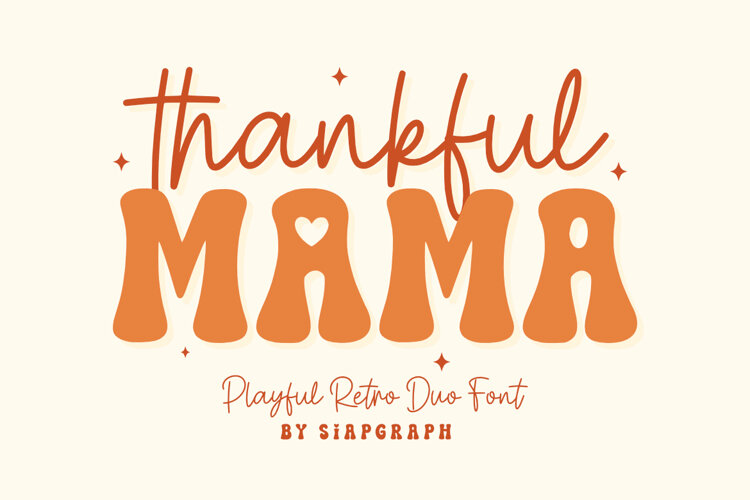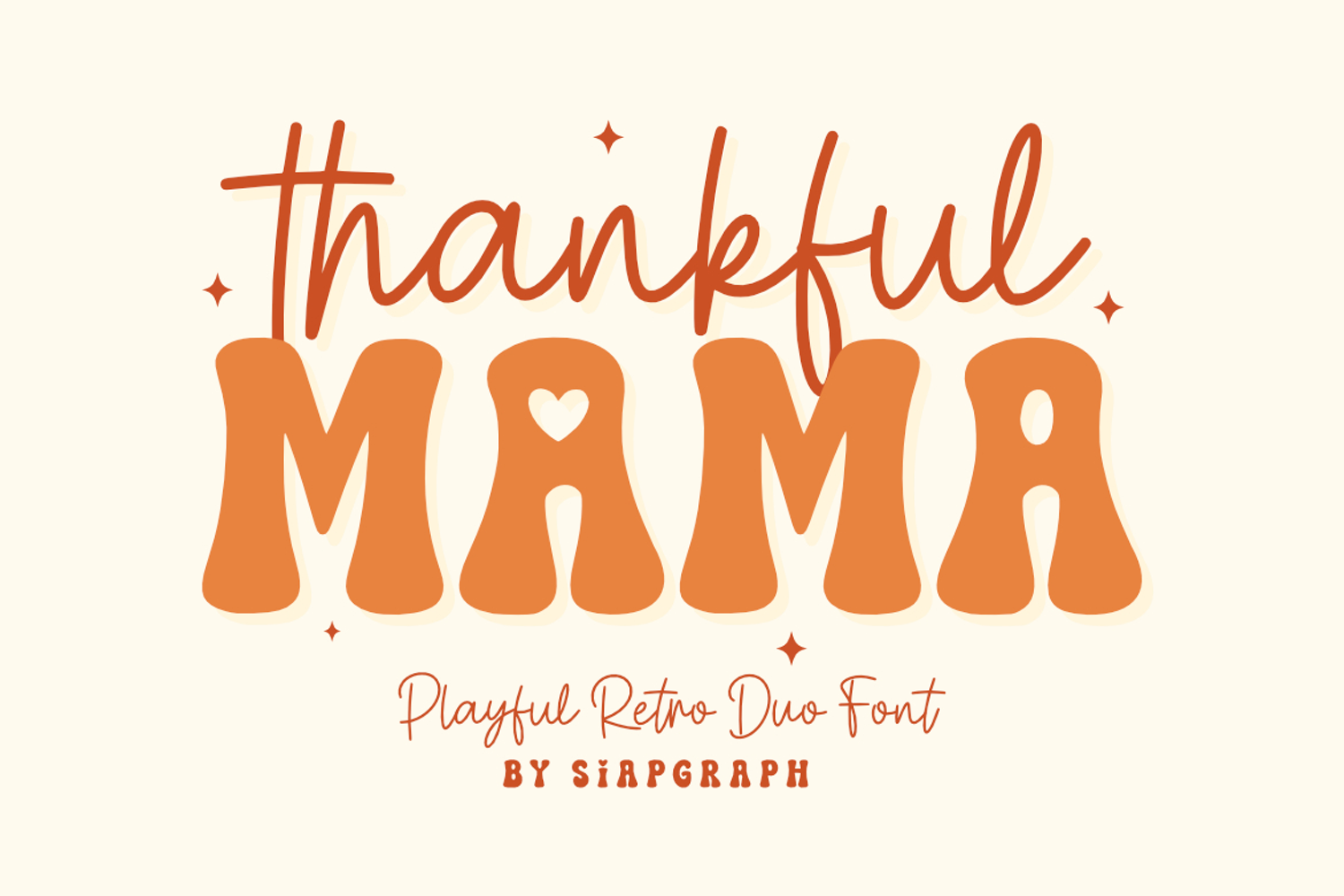
Thankful Mama - Playful Retro Duo Font
Thankful Mama is a charming Playful Retro Duo Font specially crafted to bring a warm, heartfelt, and nostalgic vibe to your creative projects. This pack features a bold, groovy chunky display font paired with a smooth, casual handwriting script, allowing you to create perfectly balanced compositions complete with lovely heart accents. Its clean and solid construction is specifically optimized for the crafting community, ensuring a seamless and frustration-free experience for vinyl cutting, sublimation, and high-quality digital printing.
Perfect for: creating high-impact SVG cut files, Mother's Day gifts, Thanksgiving cards, family matching t-shirts, custom tote bags, heartfelt mugs, festive stickers, and cozy social media graphics. Whether you are a professional Print on Demand (POD) seller or working on a special DIY family project, this font duo provides the ideal balance of readability and heartwarming charm.
Great for themes such as Mother's Day, Thanksgiving, Fall/Autumn celebrations, Family events, and Mom life quotes, adding a loving, cheerful, and stylish retro personality to all your design collections!
Thankful Mama